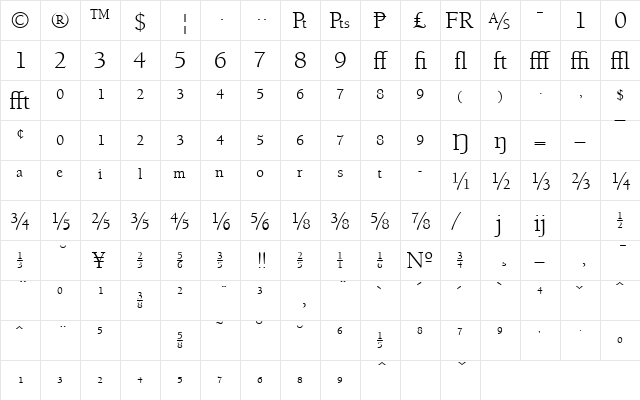
UniversityOldExp Regular
Design Context for UniversityOldExp Typeface
UniversityOldExp takes a measured approach to typography — its balanced proportions and neutral character make it a reliable workhorse for both digital and print work.